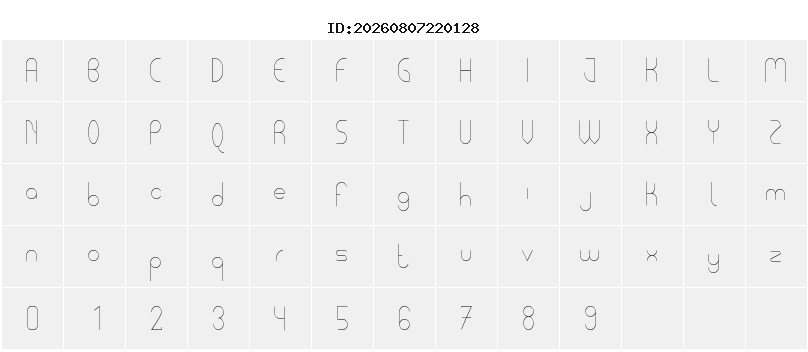
• Font Name: Pycuaf light tfb
• Full Font Name: Pycuaf light tfb
• Designer: kaiserzharkhan
About Pycuaf light tfb.ttf
Pycuaf light tfb.ttf is a modern, elegant sans-serif font designed for ultimate readability and visual harmony. Perfect for branding, headlines, web design, and print materials.